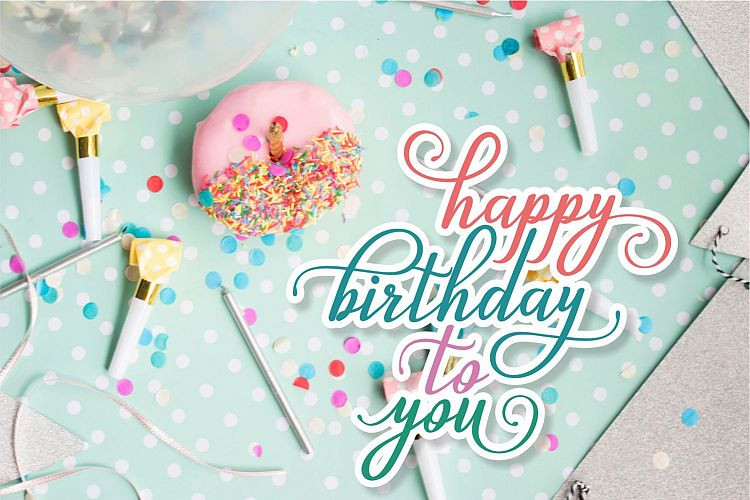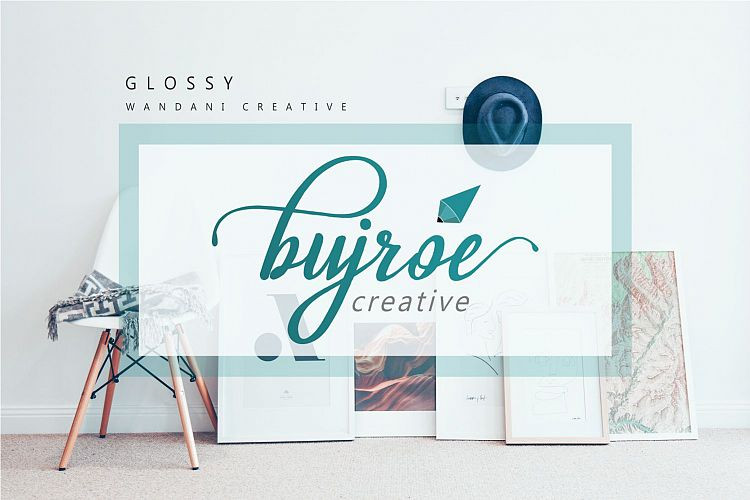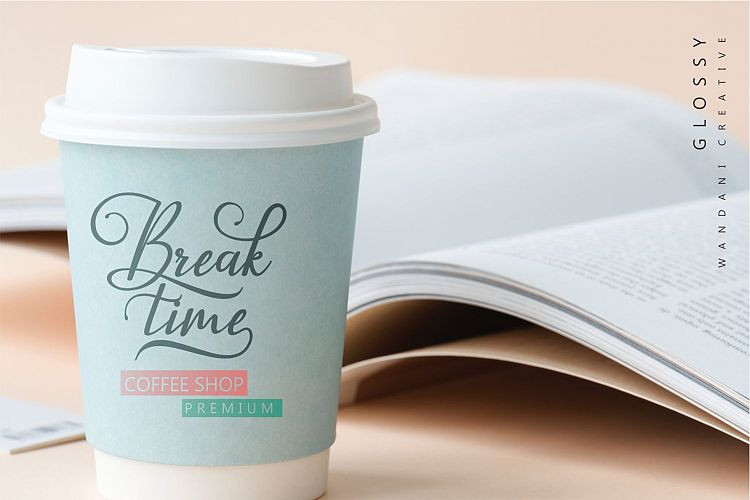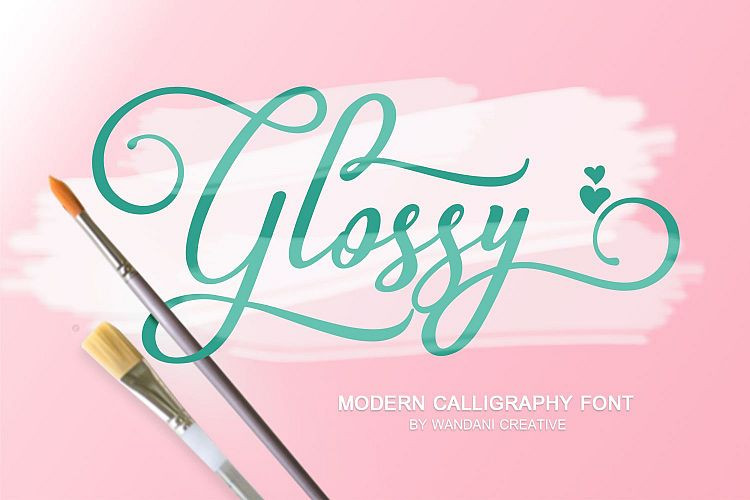
Glossy Script Font
Glossy Script Font – Free Demo
A modern calligraphy font by Wandani. Introducing Glossy Calligraphy Font. I’ve truly enjoyed the process of creating Aldery and hope that it will bring some magic into your projects! “Glossy Script Font” is a beautiful, elegant and charming script font in appearance and design. This font comes with various characters and ligatures, so you can make the most interesting calligraphy design in a simple and easy way. It’s perfect for branding, packaging design, wedding, logos, etc.